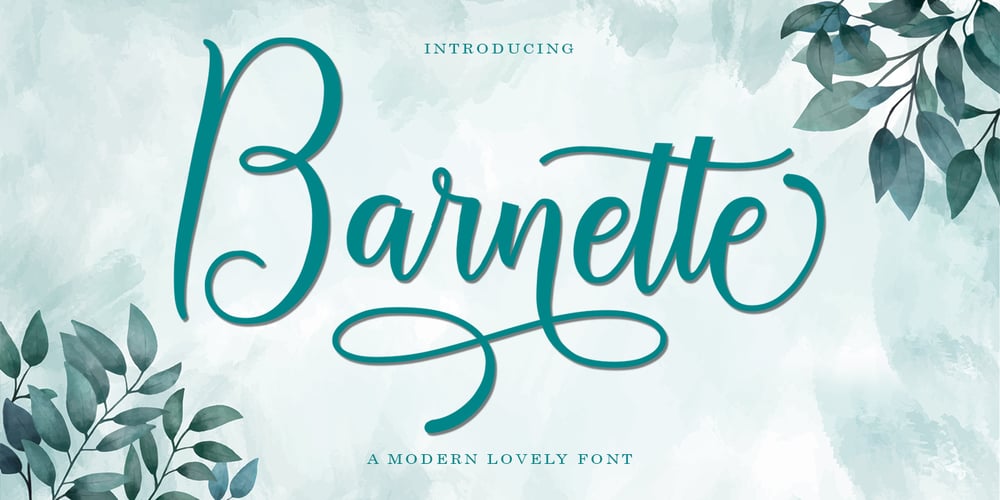
Barnette Font Family was designed by Reza Haitami and published by Black Studio. Barnette contains 1 styles and family package options. Barnette Script is a new modern script font with an irregular baseline. Feminine style and style.Barnette Script looks beautiful on wedding invitations, thank you cards, quotes, greeting cards, logos, business cards and more. Perfect for use in ink or water-colour. Includes start and end letters, alternatives and support for many languages.To activate the OpenType Stylistic alternative, you need a program that supports OpenType features such as Adobe Illustrator CS, Adobe Indesign & CorelDraw X6-X7, Microsoft Word 2010 or a later version. There is an additional way to access alternatives / swashes, using the Character Map (Windows), Nexus Fonts (Windows), Font Book (Mac) or a software program such as PopChar (for Windows and Mac).